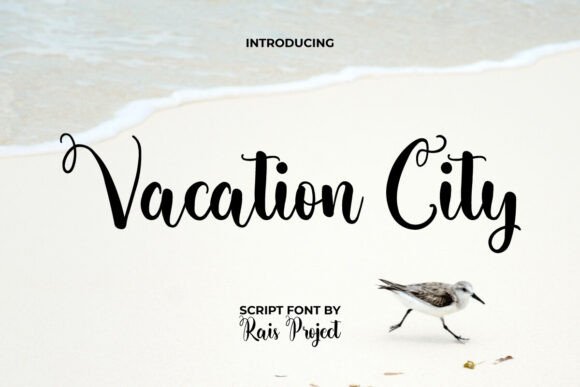
Journey to Vacation City, where handwritten elegance meets modern sophistication. Immerse yourself in a world of captivating scripts, designed to leave a lasting impression. Our Vacation City font is an ode to creativity, a celebration of the written word, and a gateway to boundless possibilities.
Step into a realm where letters dance with grace, where every stroke tells a story, and every word carries a unique charm. Vacation City's enchanting curves and swooshes evoke a sense of timeless beauty, inviting you to craft designs that radiate elegance and style.
Picture your words adorned with Vacation City's delicate strokes, flowing effortlessly across the page. Whether you're composing a heartfelt letter, creating an eye-catching logo, or designing a stunning invitation, Vacation City adds a touch of effortless sophistication that elevates your message.
Unleash your imagination and embark on a creative adventure with Vacation City. Transform your designs into works of art, capturing the attention of your audience and leaving them spellbound.
Let Vacation City be your muse, guiding you to create designs that resonate with your audience. Embrace the power of written words, enhanced by the beauty of Vacation City's elegant script.